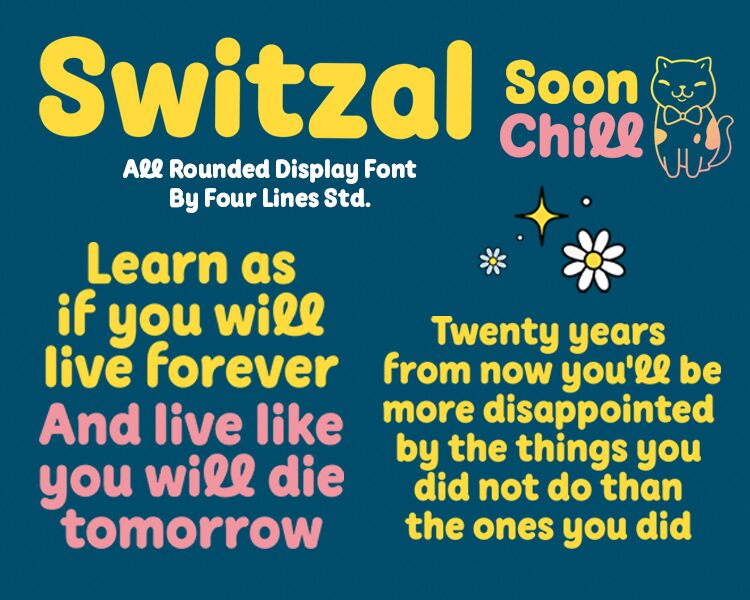
Switzal font by Four Lines is a bold display font with retro influence and friendly appearance. It has rounded design elements, a casual aesthetic, and an overall approachable style. Whatever it communicates appears almost handwritten on a blackboard with chalk, capturing the attention of readers.